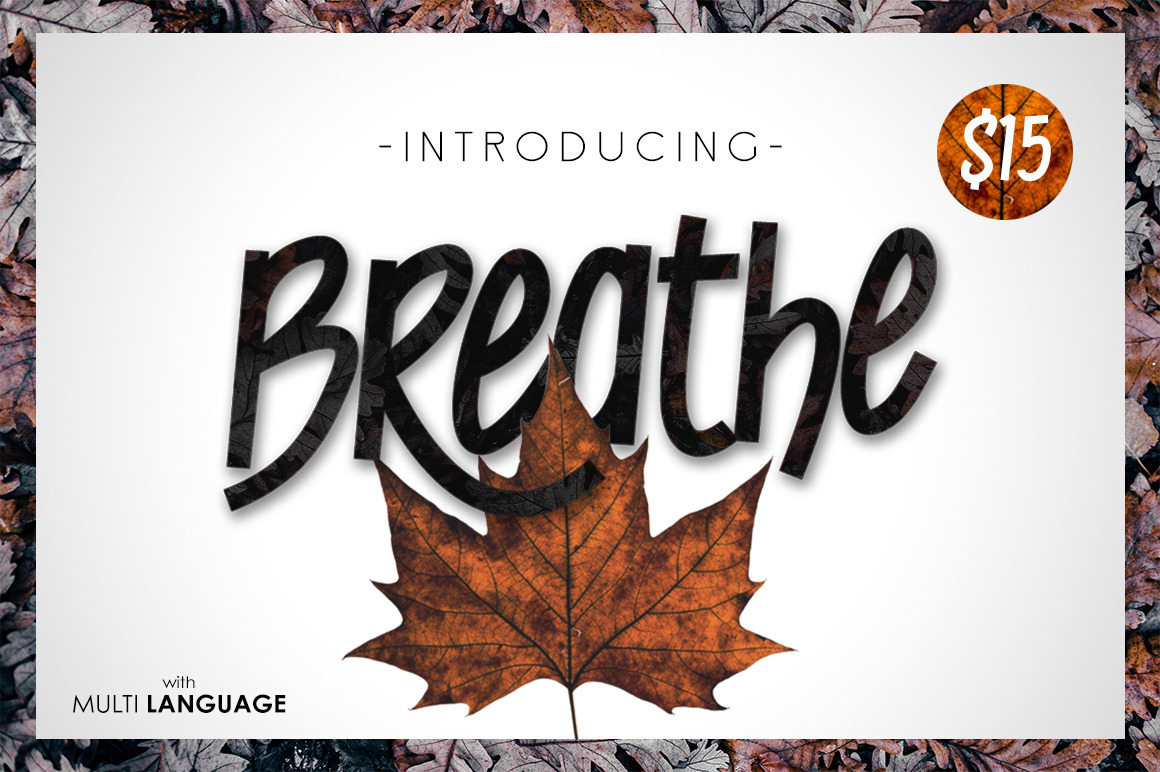
Breathe Typeface
BREATHE TYPEFACE is new product from WCKY.STD. Good font for Poster, movie tittle, book cover, and anymore.
- number & punctuation
- multi language
- stylistic alternate